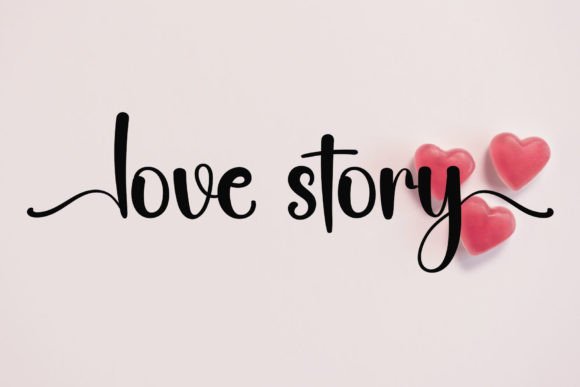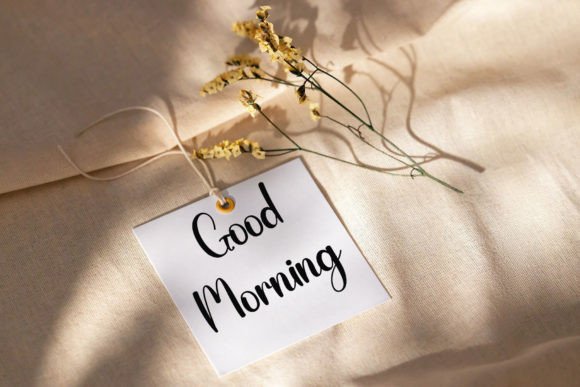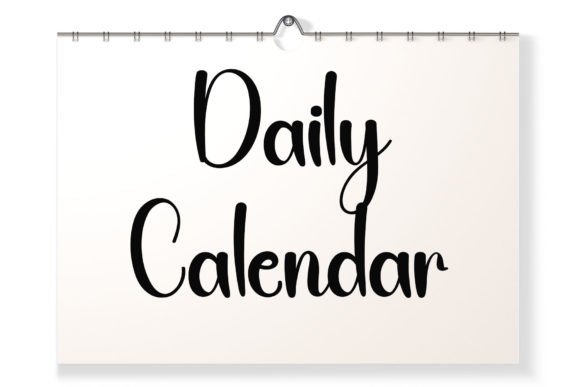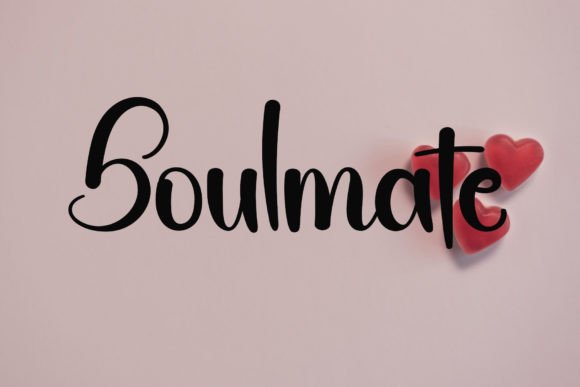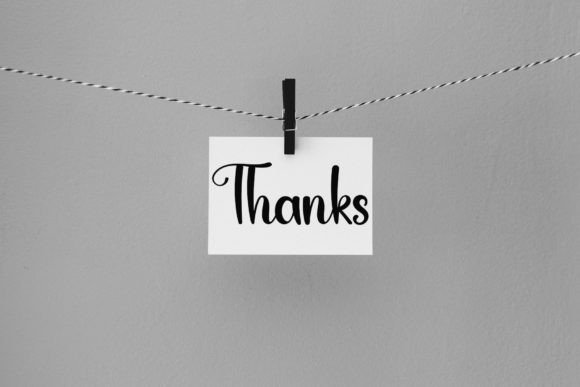
Introducing Happy Font: The Sweet and Beautiful Handwritten Font
Are you looking for a font that can add a touch of luxury and sweetness to your design projects? Look no further than Happy Font! This beautiful handwritten font is designed to make your designs stand out with its unique and elegant characters that dance along the baseline.
What Makes Happy Font Special?
Happy Font is a one-of-a-kind handwritten font that is sure to capture the hearts of designers and crafters alike. Its sweet and beautiful characters are carefully crafted to add a touch of luxury to any design project. Whether you’re working on a branding project, a wedding invitation, or a craft project, Happy Font is the perfect choice.
Key Features of Happy Font
- Handwritten with love: Happy Font is a handwritten font that is designed to look like it was written with love and care. Each character is carefully crafted to ensure that it looks perfect in any design project.
- Dancing along the baseline: The characters in Happy Font are designed to dance along the baseline, giving your designs a playful and elegant touch.
- Luxury spark: Happy Font is designed to add a touch of luxury to any design project. Its elegant and sophisticated look makes it perfect for high-end designs.
- Versatile: Happy Font is a versatile font that can be used in a variety of design projects, from branding and advertising to wedding invitations and craft projects.
How to Use Happy Font in Your Design Projects
Using Happy Font in your design projects is easy! Here are a few tips to get you started:
- Pair it with other fonts: Happy Font looks great when paired with other fonts. Try pairing it with a bold font for a striking contrast.
- Use it for headings and titles: Happy Font is perfect for headings and titles. Its elegant and sophisticated look makes it perfect for adding a touch of luxury to your designs.
- Experiment with colors: Happy Font looks great in a variety of colors. Experiment with different colors to find the one that works best for your design project.
Why Designers and Crafters Love Happy Font
Designers and crafters love Happy Font for a variety of reasons. Here are a few:
- Unique and elegant: Happy Font is a unique and elegant font that adds a touch of sophistication to any design project.
- Perfect for a variety of projects: Happy Font is perfect for a variety of design projects, from branding and advertising to wedding invitations and craft projects.
In conclusion, Happy Font is a sweet and beautiful handwritten font that is sure to add a touch of luxury to any design project. Its unique and elegant characters make it perfect for designers and crafters who want to create high-end designs. With its versatility and ease of use, Happy Font is a must-have font for any designer or crafter.